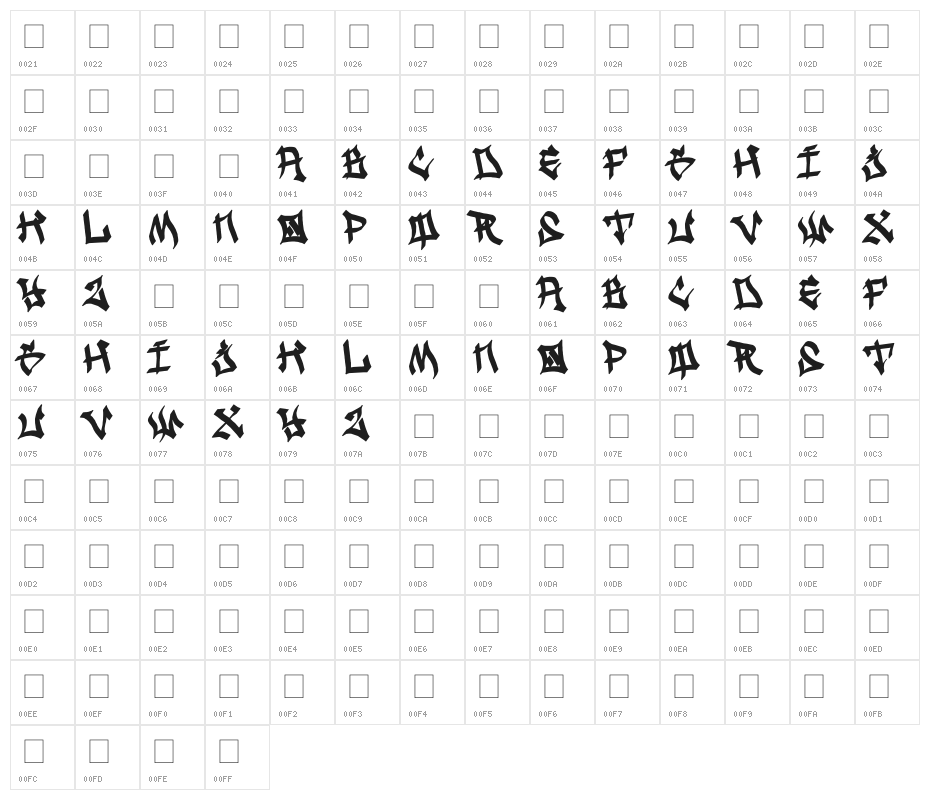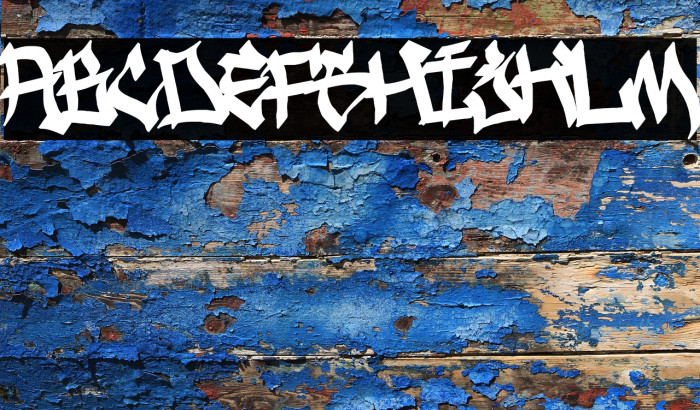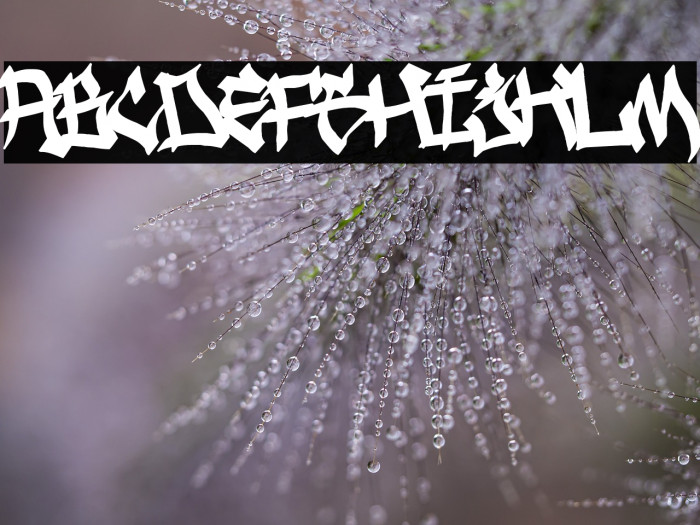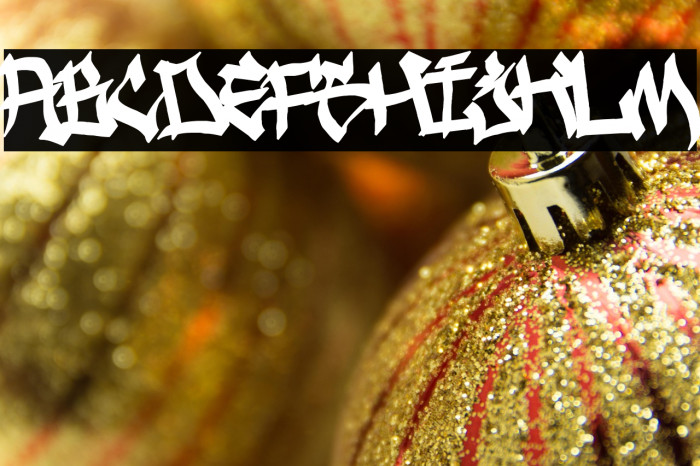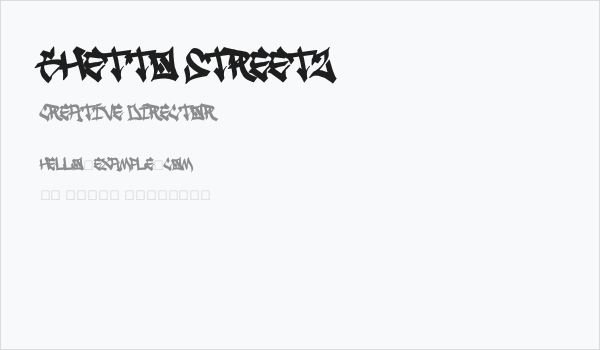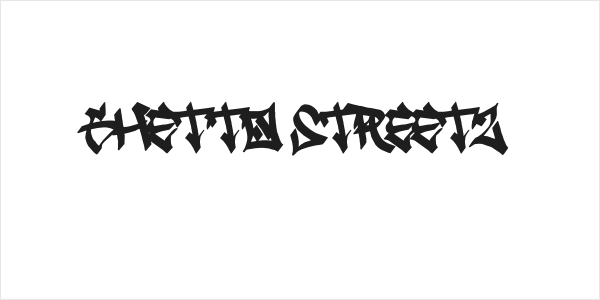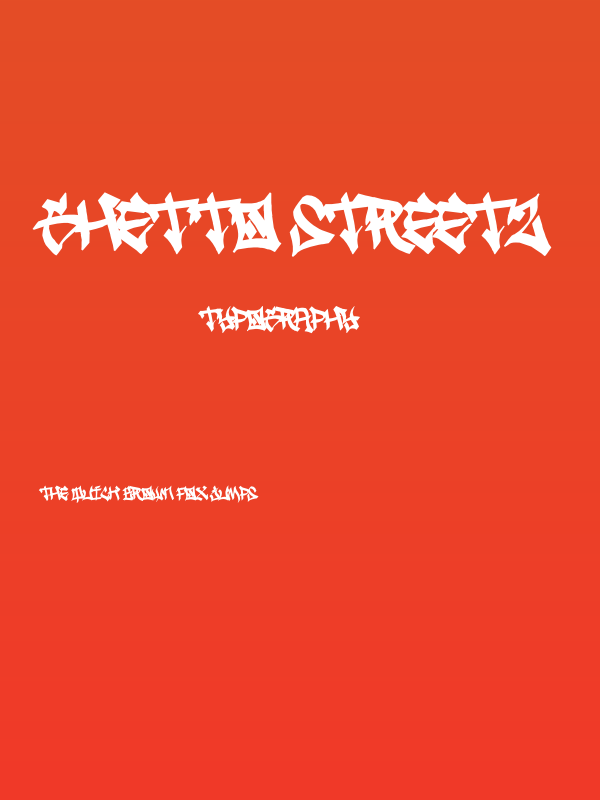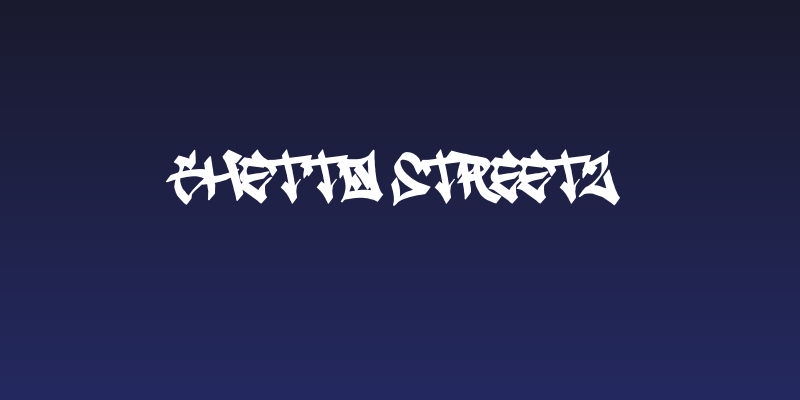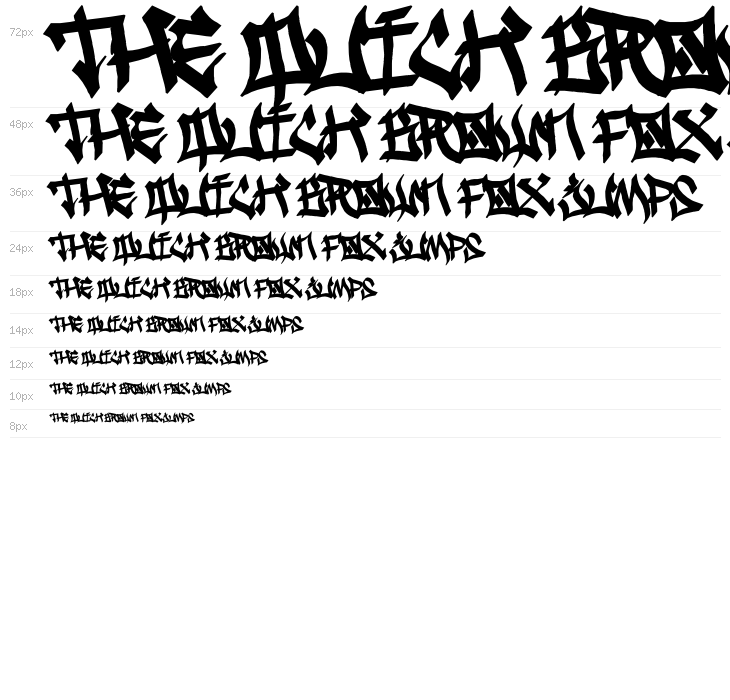
Ghetto Streetz Font
Ghetto Streetz Description
This font features a bold, graffiti-inspired style with sharp, angular lines and a dynamic, energetic appearance. The characters are heavily stylized, with exaggerated curves and points that give them a rebellious and urban feel. The uppercase letters are particularly striking, with each character having a unique flair that makes it stand out. The font's design is reminiscent of street art and hip-hop culture, making it ideal for projects that aim to capture a sense of edginess and modernity. The overall look is both artistic and bold, perfect for making a statement.
| Overall Style | Modern, Urban, Edgy |
| Use Case | Logos, Posters, Album Covers |
| Proposed Projects | Ideal for streetwear branding, music album covers, urban-themed posters, and graffiti art projects. |